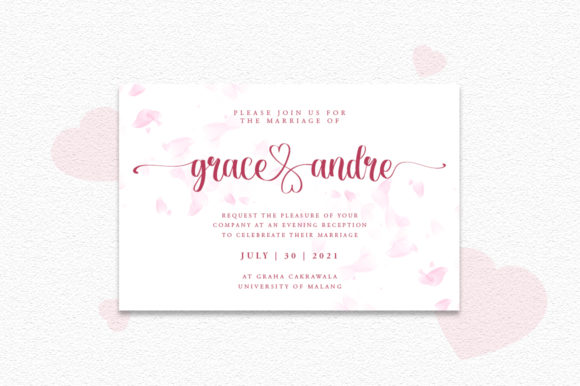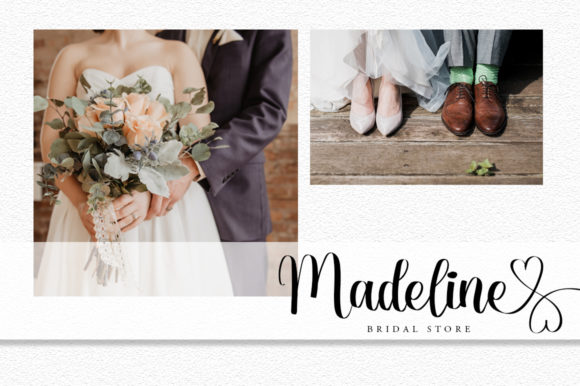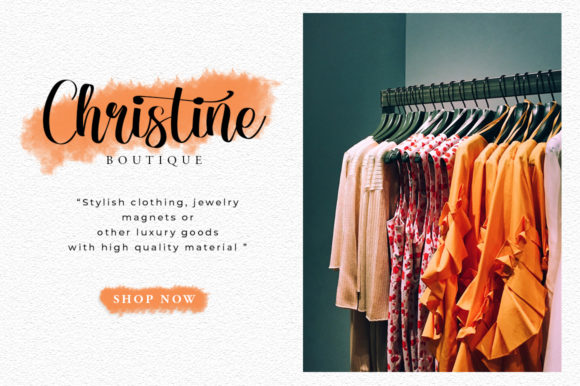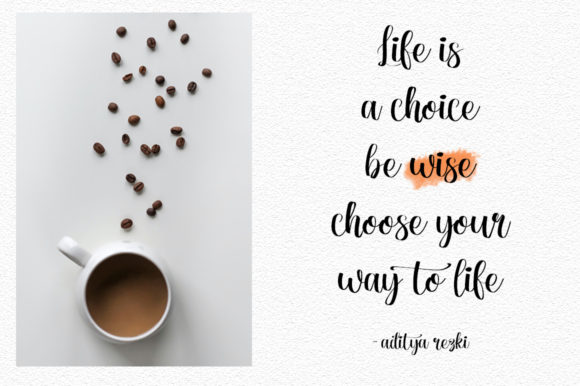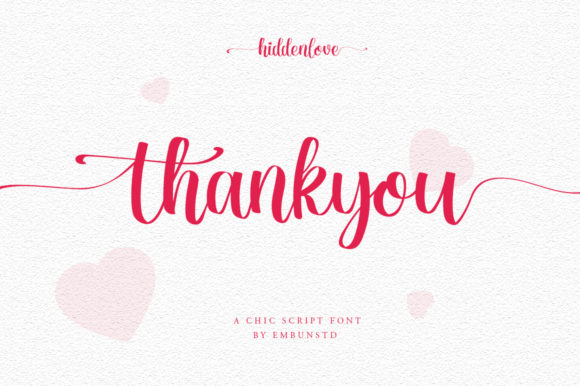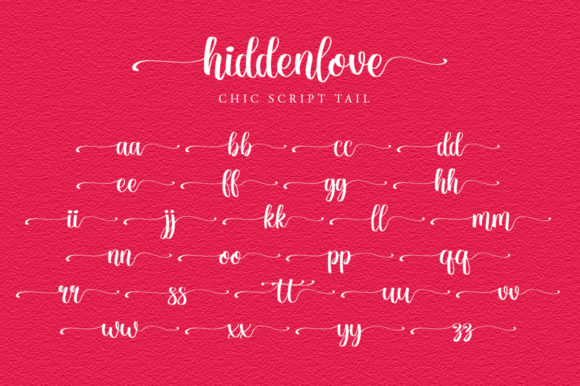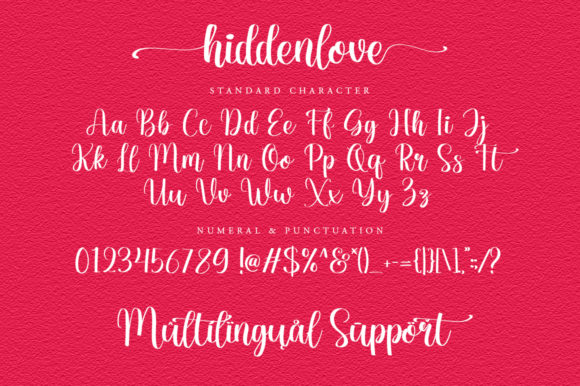
Hidden Love Font
About Hidden Love Font
“Hidden Love” sounds like a beautiful and versatile handwritten font that can elevate various design projects. Here are some key features that make it stand out:
Elegant and Flowing: The font’s elegance and flowing design exude a sense of grace and sophistication, making it suitable for a wide range of elegant and refined designs.
PUA Encoded: The PUA encoding allows for easy access to all the glyphs and swashes, providing designers with more options for creative customization.
Varying Baseline: The font’s varying baseline adds a dynamic and organic touch to the typography, creating a natural and authentic feel.
Smooth Lines: With smooth and well-crafted lines, “Hidden Love” ensures a seamless and visually appealing appearance.
Gorgeous Glyphs: The font’s glyphs are carefully designed, contributing to its overall beauty and charm.
Stunning Alternates: The availability of stunning alternates within the font allows for creative experimentation and unique typographic compositions.
Classy Calligraphic Influences: The font’s calligraphic influences give it a touch of timeless elegance and classic beauty.
Contemporary and Fresh: Despite its calligraphic influences, “Hidden Love” manages to maintain a contemporary and fresh feel, making it relevant for modern design trends.
Versatility: The font’s combination of elegance and contemporary elements makes it suitable for a wide variety of design projects, from wedding invitations to branding and beyond.
Captivating Titles: Use “Hidden Love” for eye-catching and captivating titles that draw attention and create a lasting impression.
Wedding Invitations: Given its elegant and graceful appearance, “Hidden Love” is likely to be a perfect choice for creating stunning wedding invitations that evoke a sense of romance and love.
Greeting Cards: The font’s flowing and elegant style can add warmth and sincerity to greeting cards, making them even more heartfelt and personal.
Branding and Logos: “Hidden Love” can be used to create sophisticated and memorable branding elements, such as logos and business cards, for businesses and personal brands alike.
Social Media Graphics: Its versatility and elegance make “Hidden Love” a great choice for social media graphics that aim to convey a polished and refined brand image.
Subtle Romance: The font’s name, “Hidden Love,” suggests that it can bring a touch of romance and intimacy to designs, making it ideal for love-themed projects.
Smooth Reading Experience: Despite its calligraphic appearance, “Hidden Love” maintains readability, ensuring that the message or text is conveyed clearly to the audience.
Customization: The availability of glyphs and swashes allows designers to customize and tailor the typography to specific design needs, adding a unique touch to their creations.
Overall, “Hidden Love” appears to be a versatile and elegant font that brings a touch of grace and beauty to various design projects. Its flowing and timeless design, combined with contemporary elements, offers designers the opportunity to create captivating and visually pleasing compositions. Whether used for print or digital media, “Hidden Love” has the potential to elevate designs and bring projects to the highest levels with its class and charm.